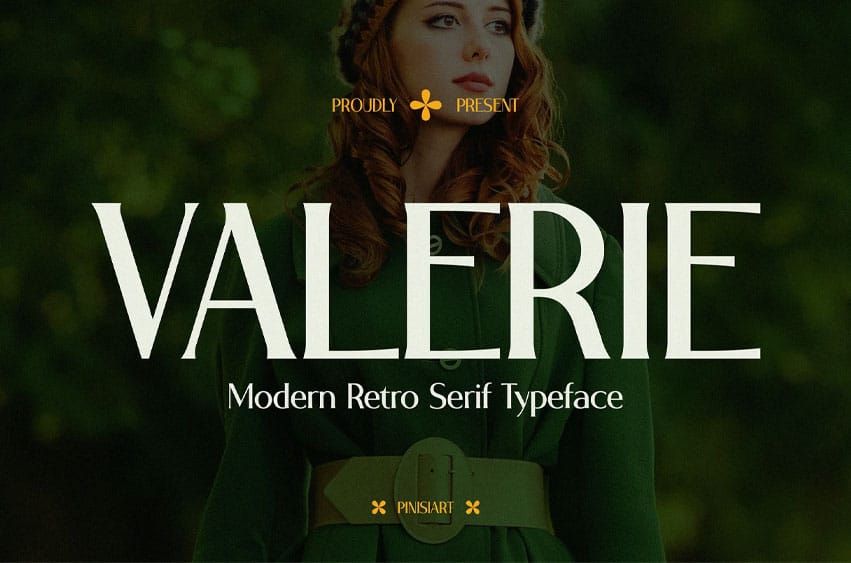
Valerie Font is a modern retro serif typeface with graceful proportions, balanced contrast, and elegant curves. Its letterforms combine nostalgic vintage charm with a contemporary edge—making it feel both stylish and versatile. With sharp serifs and soft flow, VALERIE delivers a bold yet sophisticated vibe, perfect for creating attention-grabbing headlines in fashion, lifestyle branding, and editorial design.
From Instagram posts to boutique packaging, VALERIE enhances every project with a refined, high-impact aesthetic. Whether you’re designing a luxury brand identity, stylish magazine layout, event poster, or eco-friendly product packaging, this typeface provides both visual authority and timeless flair. Its strong character design ensures your words stand out with elegance and emotional resonance.
- Retro Elegance: Classic letterform shapes reimagined with a modern twist.
- Versatile Applications: Works beautifully in branding, social media, packaging, posters, and editorial spreads.
- Distinctive Style: Sharp serifs combined with smooth contrast create striking headlines and refined body text.